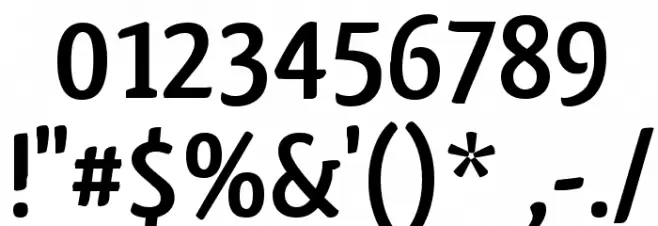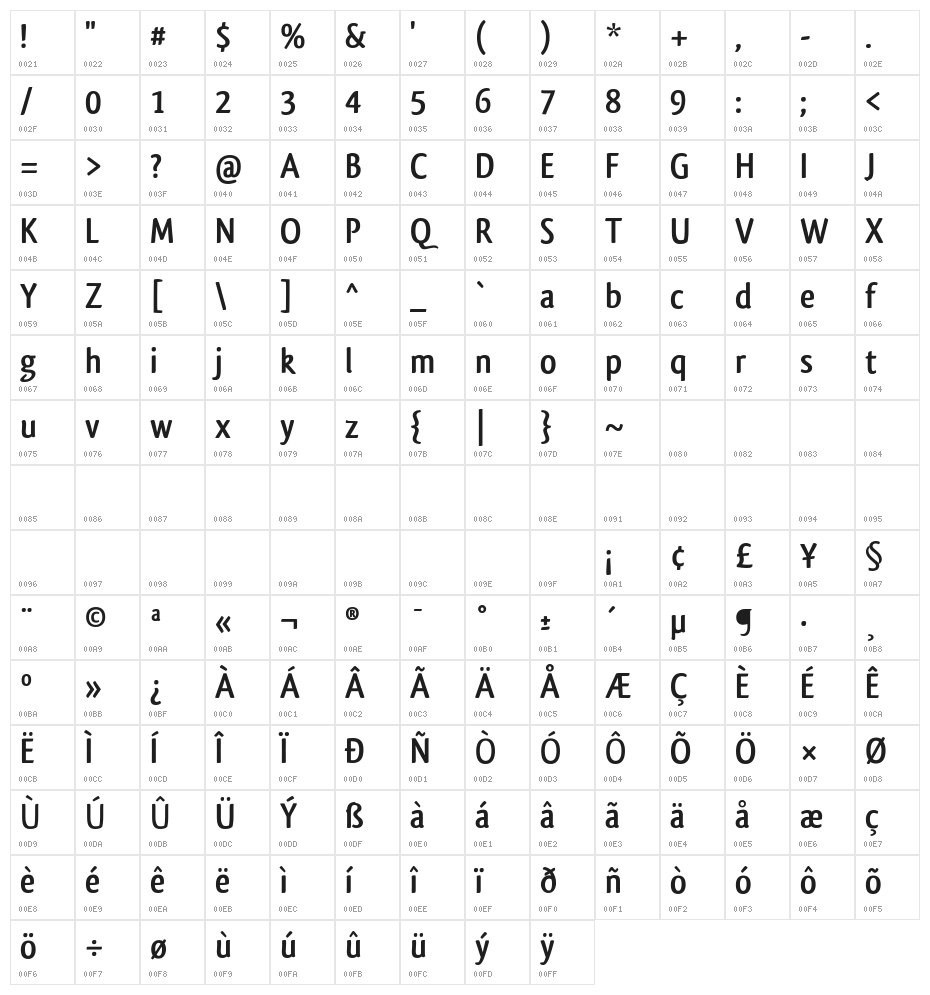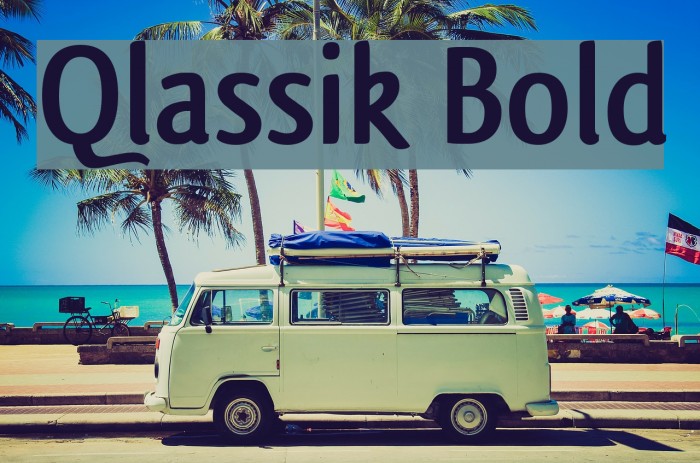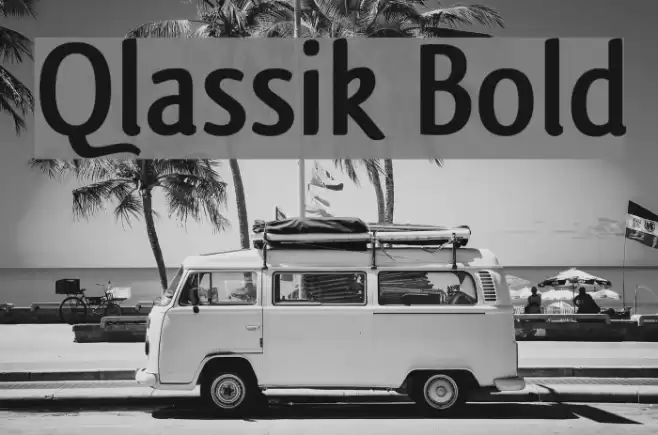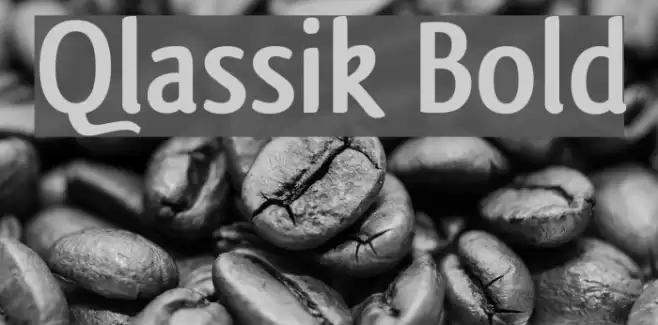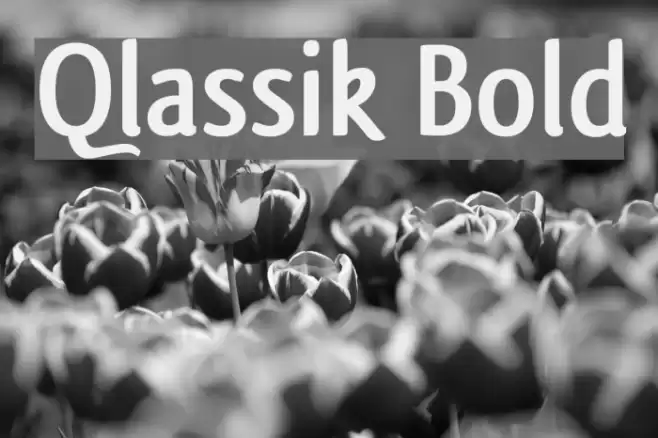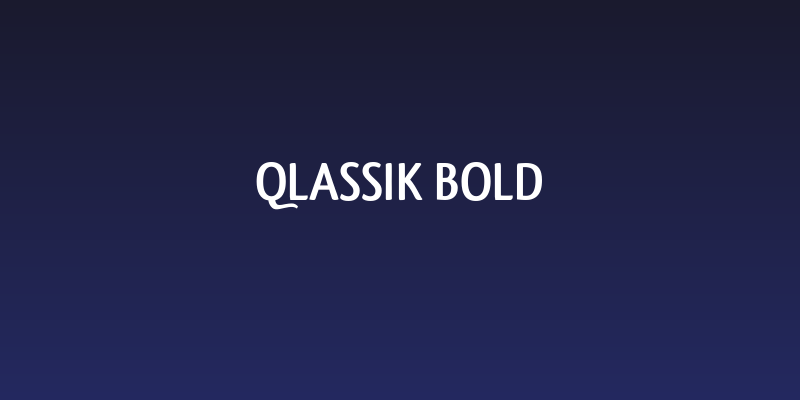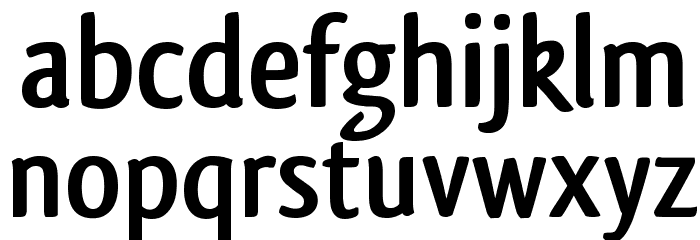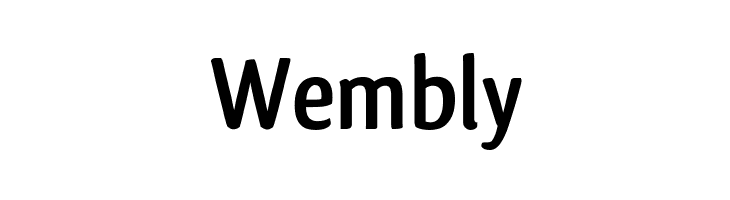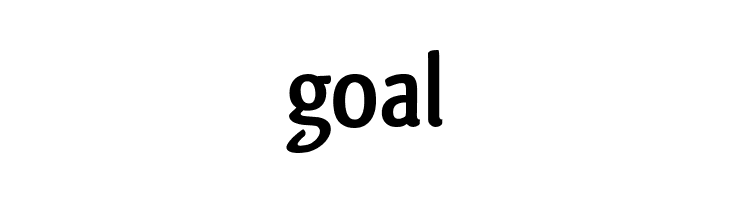
Qlassik Bold Font
Qlassik Bold Description
This font features a bold and clean sans-serif style, characterized by its smooth curves and uniform stroke width. The uppercase letters are tall and commanding, while the lowercase letters maintain a consistent height, providing a harmonious balance. The numerals are clear and easily distinguishable, making them suitable for various applications. Special characters are well-defined, adding versatility to the font's usage. The overall design is modern and professional, making it ideal for both digital and print media.
| Use Case | Headlines, Logos, Digital content |
| Proposed Projects | Ideal for branding, advertising, headlines, and digital content where clarity and impact are essential. |